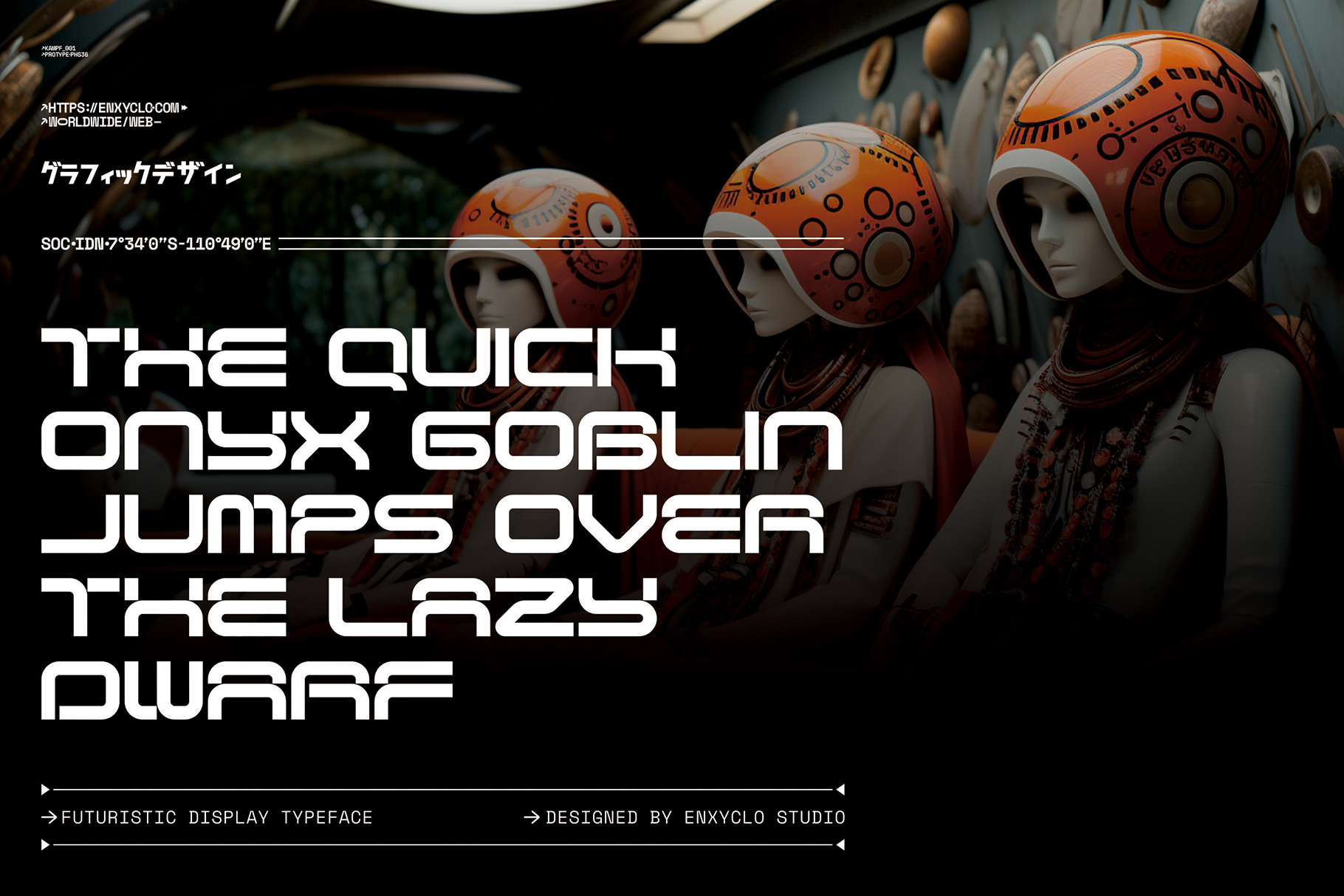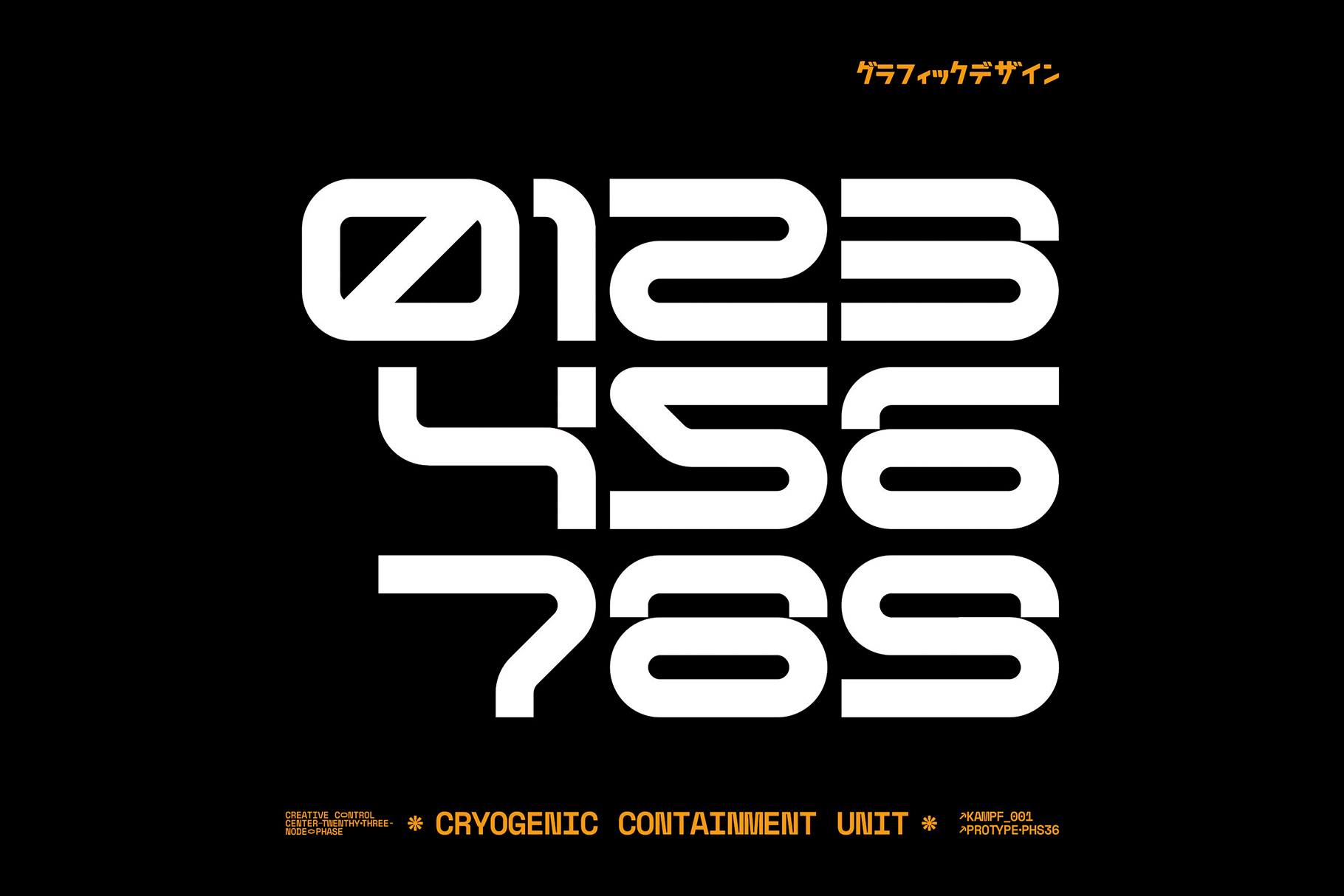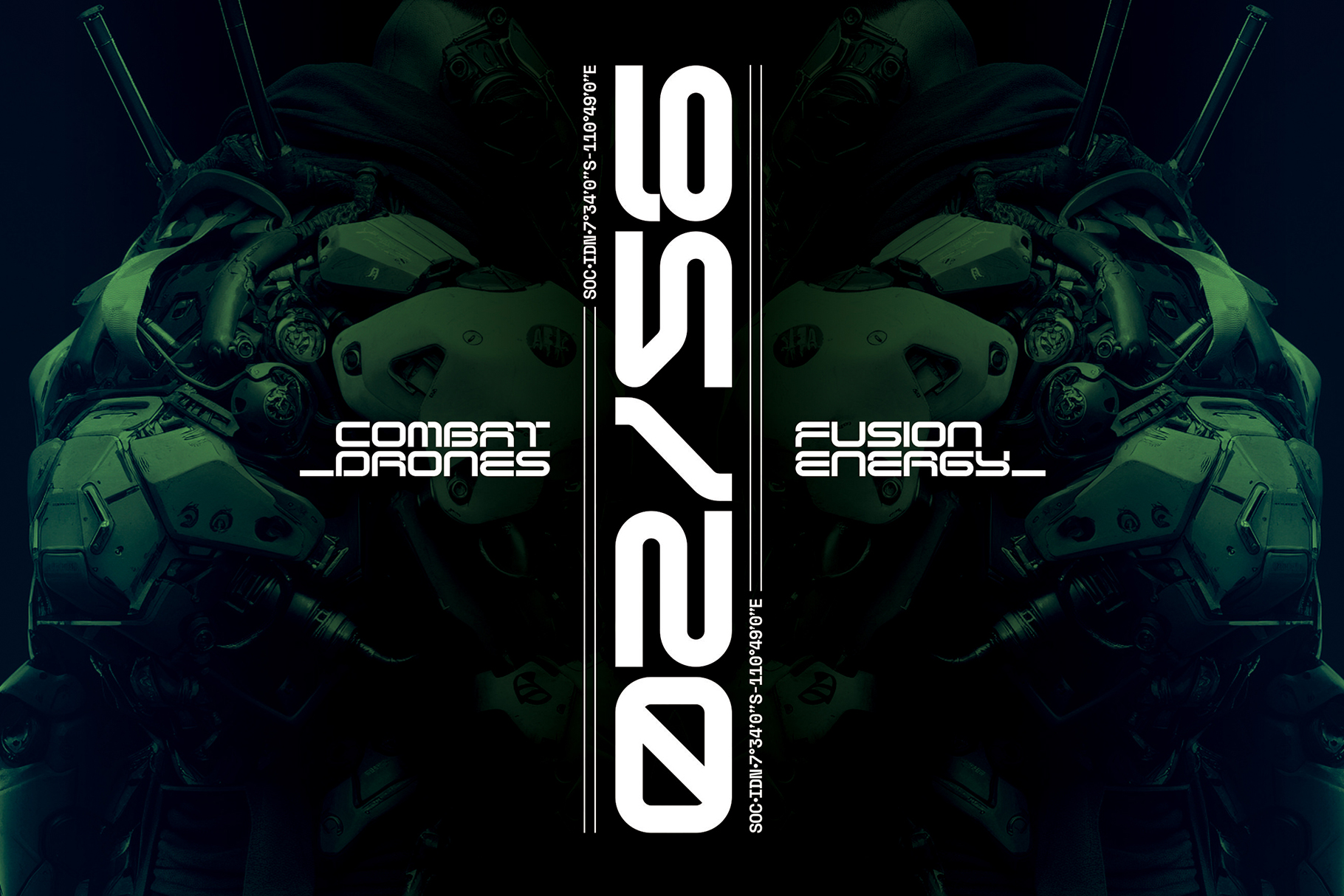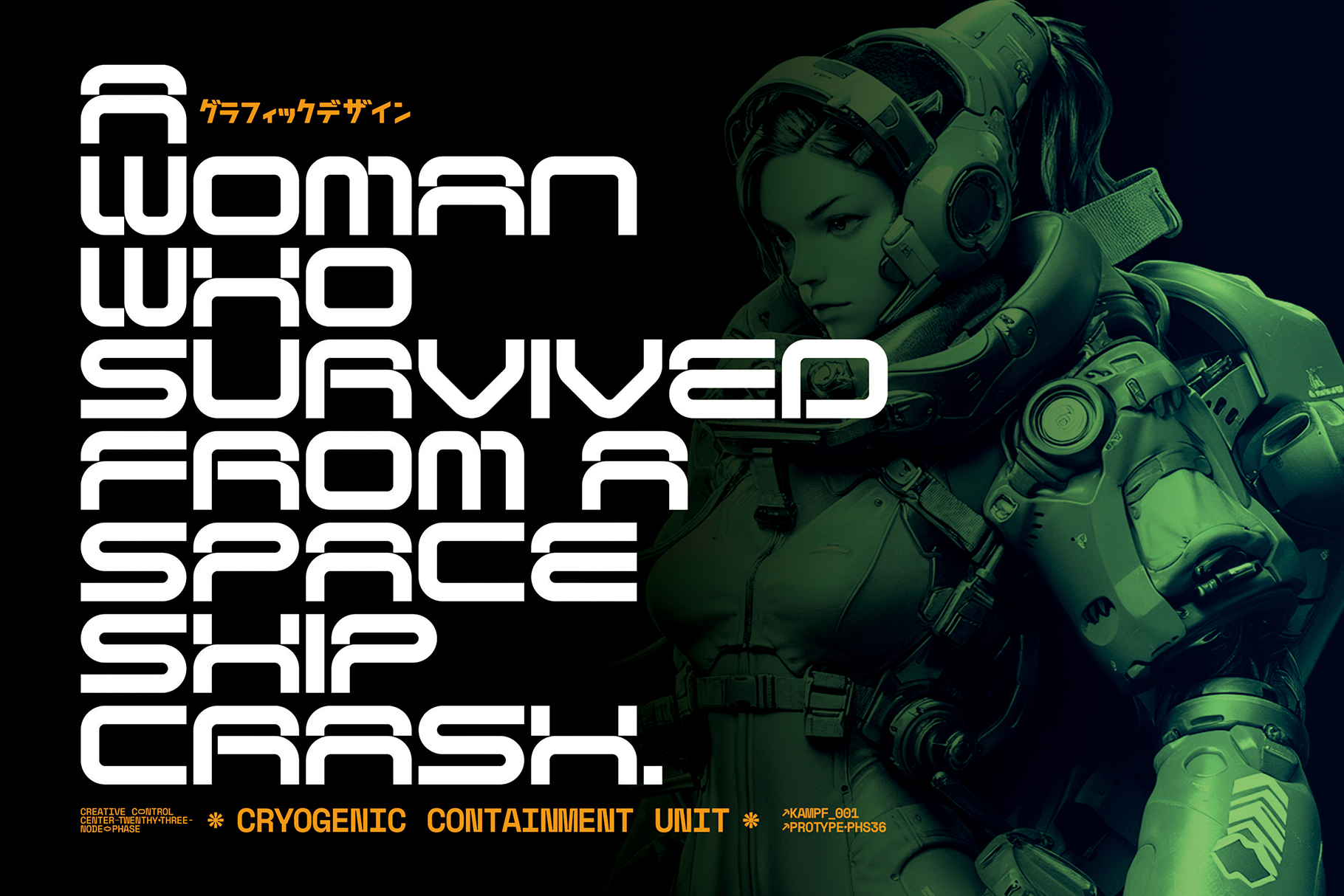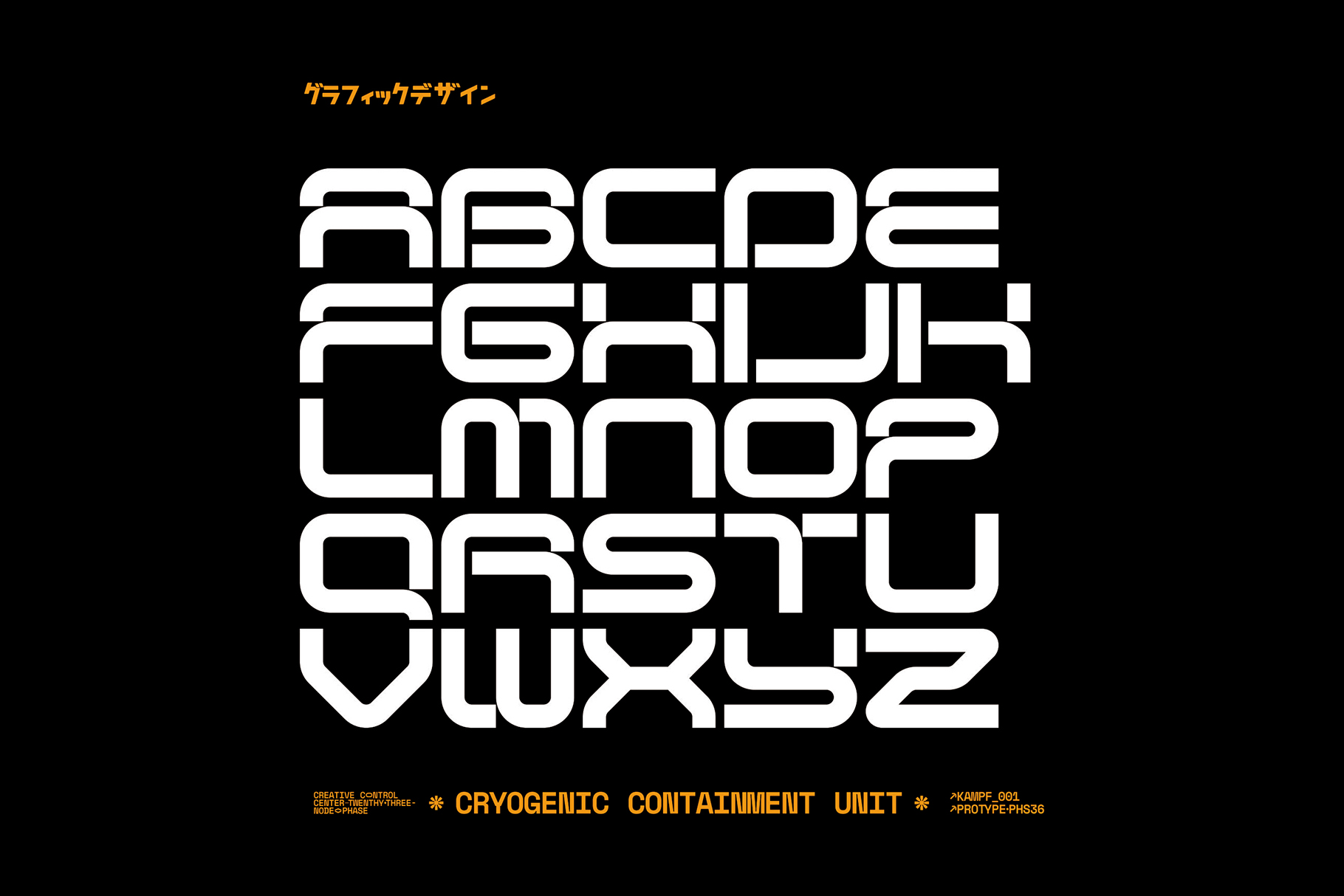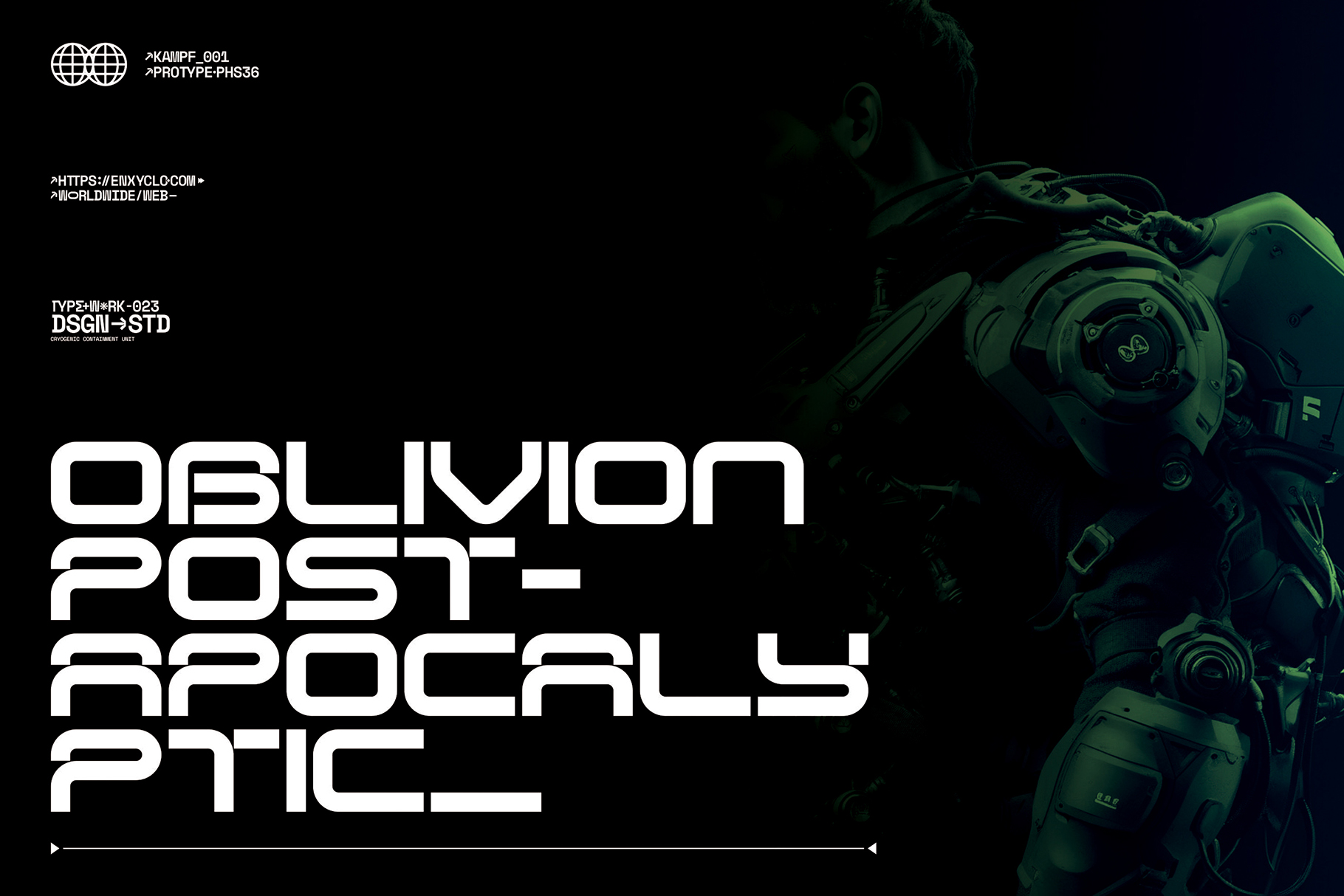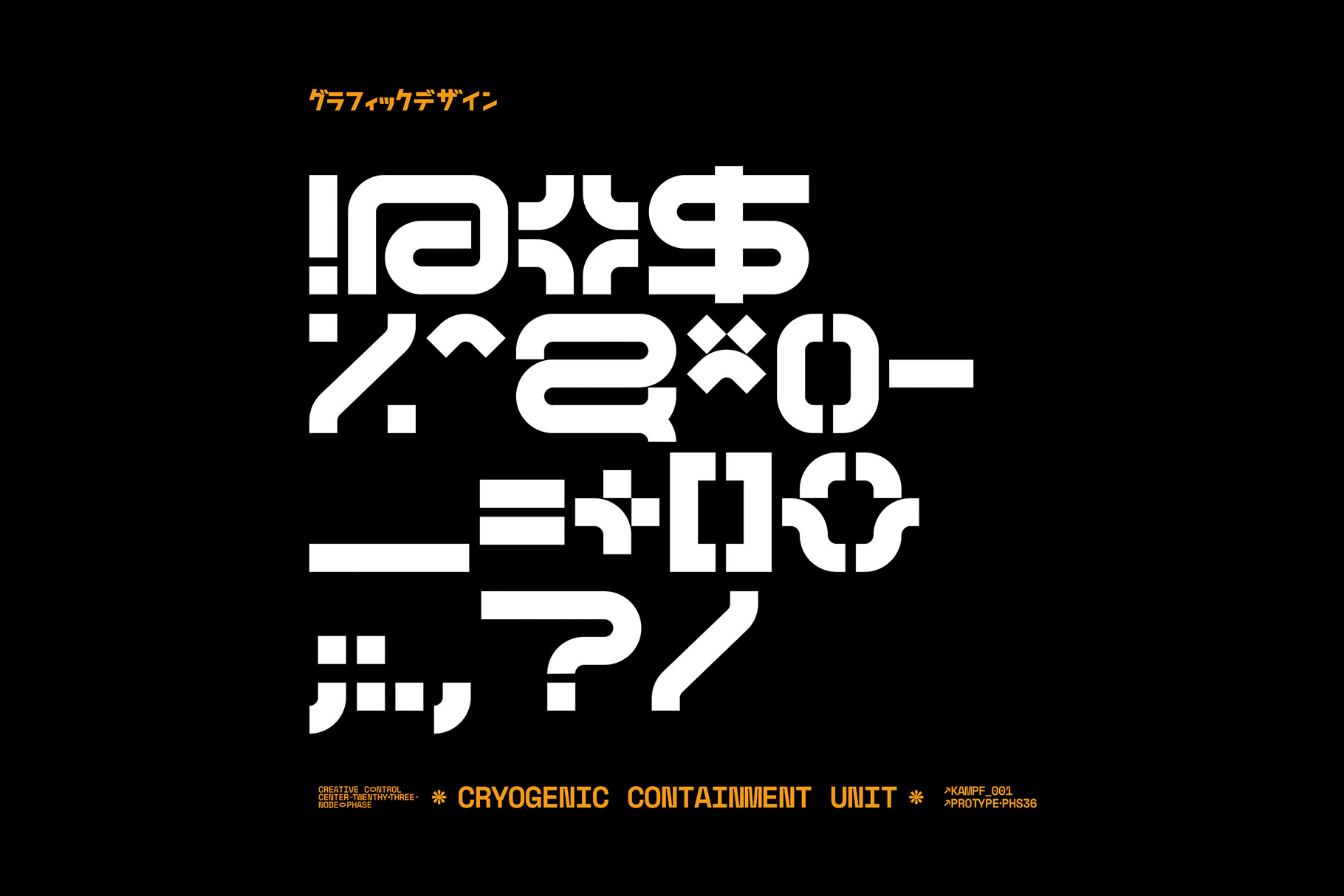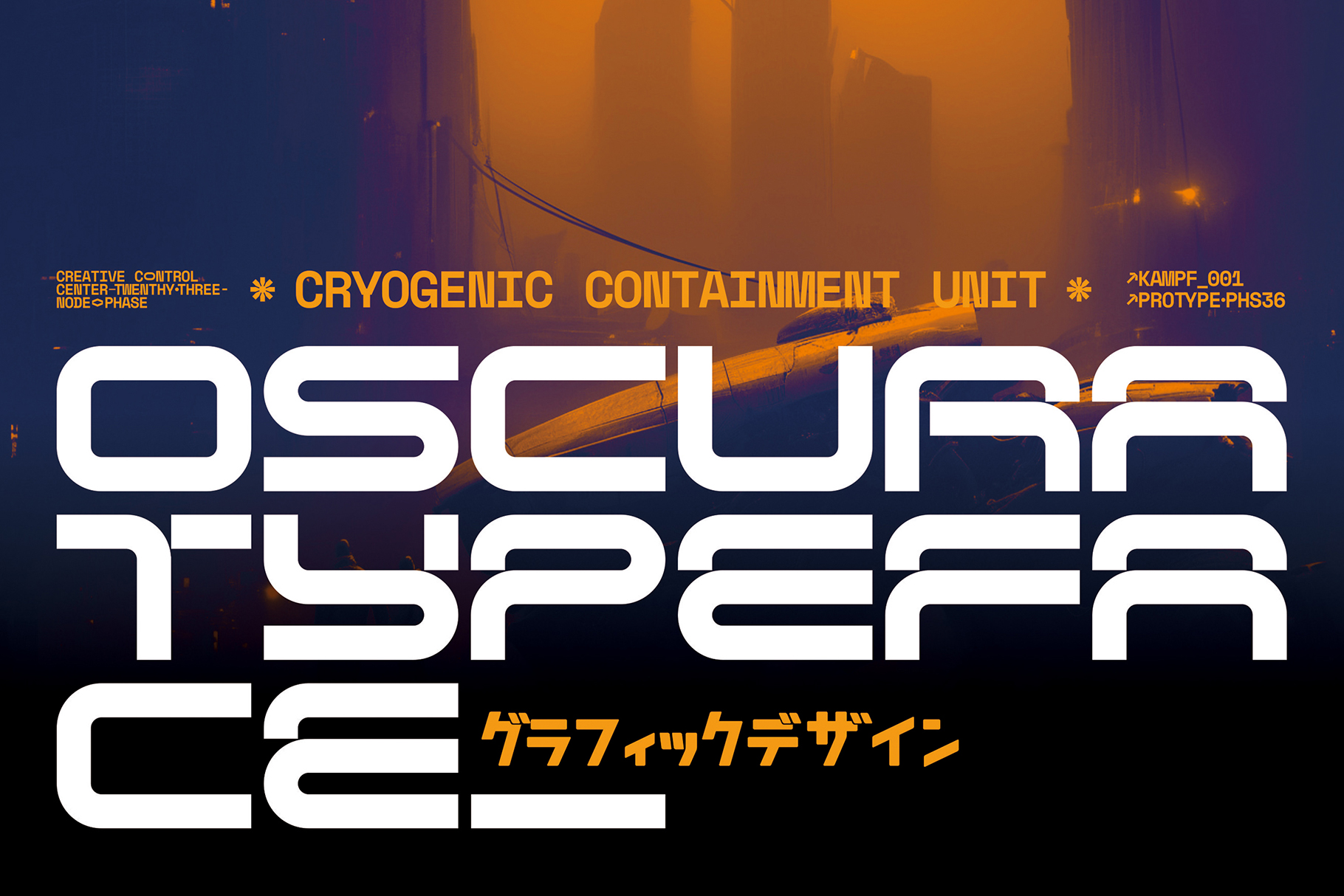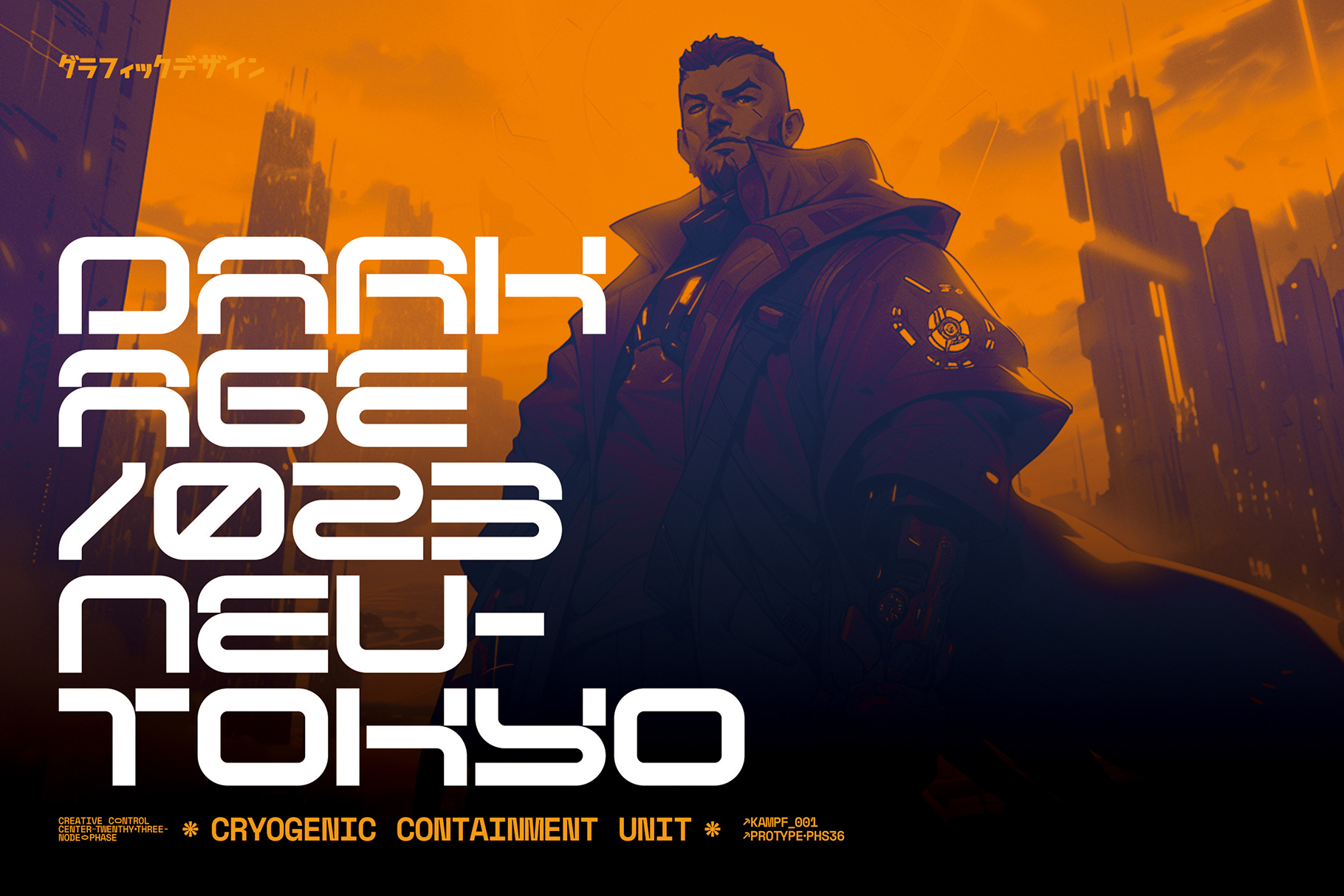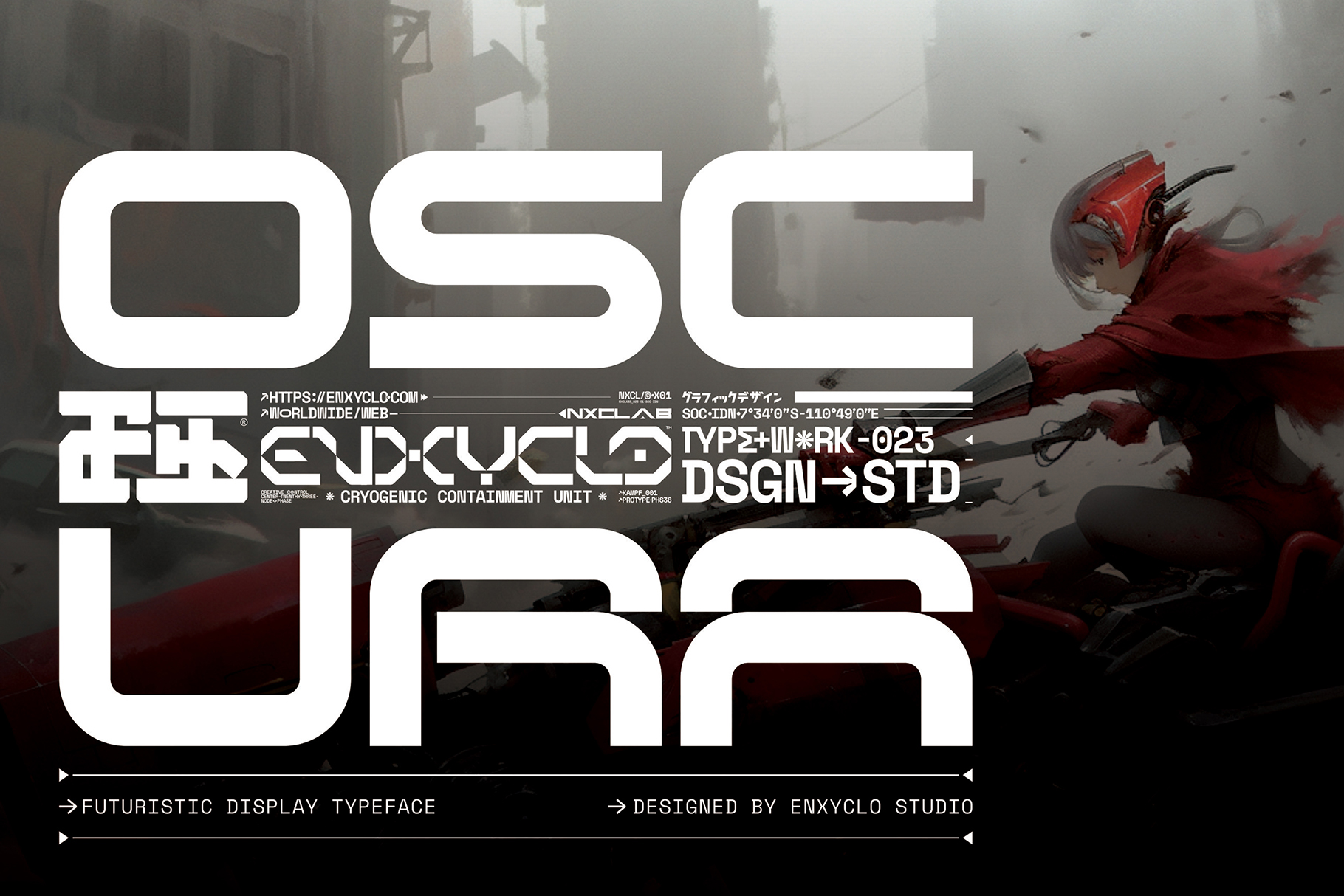
Oscura – Futuristic Techno Cyberpunk Font
OSCURA is futuristic display font. The design of typeface will make your project more powerful and inspiring. It is perfect for headline, billboard, magazines, website, titles, poster, branding, thumbnail, t-shirt design, street wear design, and creative logos, or any project that needs futuristic touch. With this beautiful futuristic display font, absolutely you can make your project stand out from the rest. See the previews above to get some inspiration on how to use them.
Total 96 Glyphs
Uppercase, Numeral & Punctuation